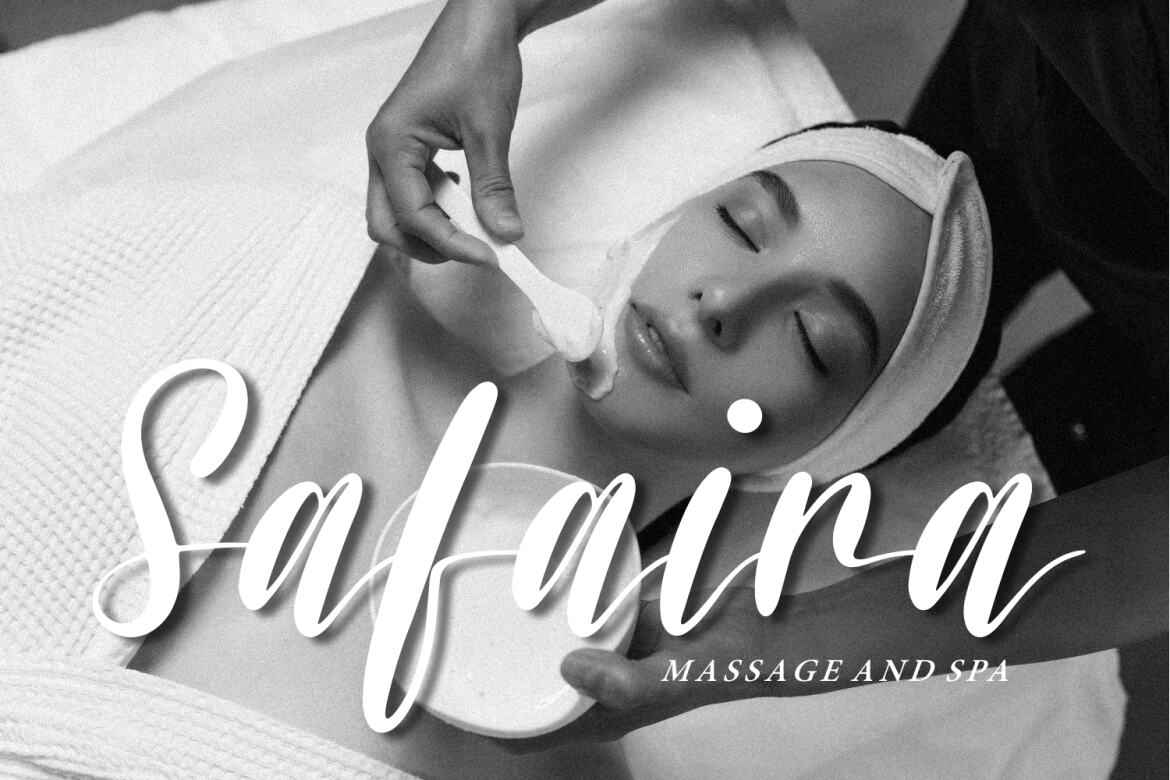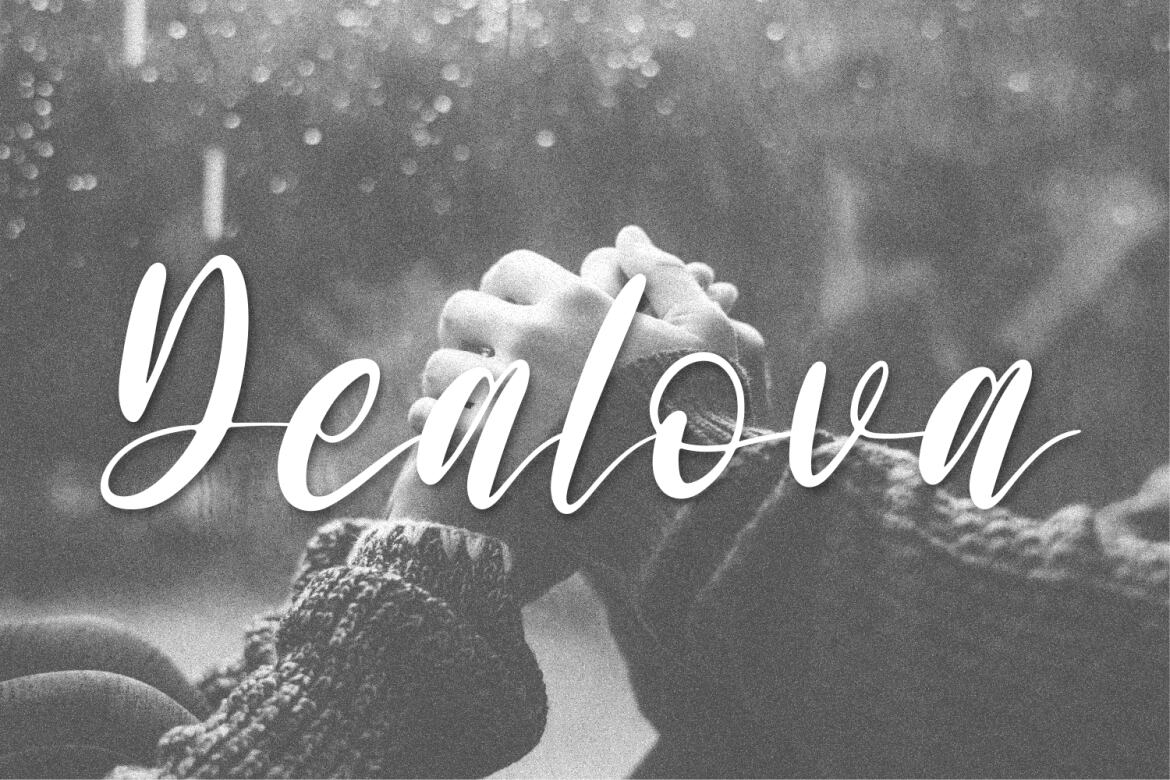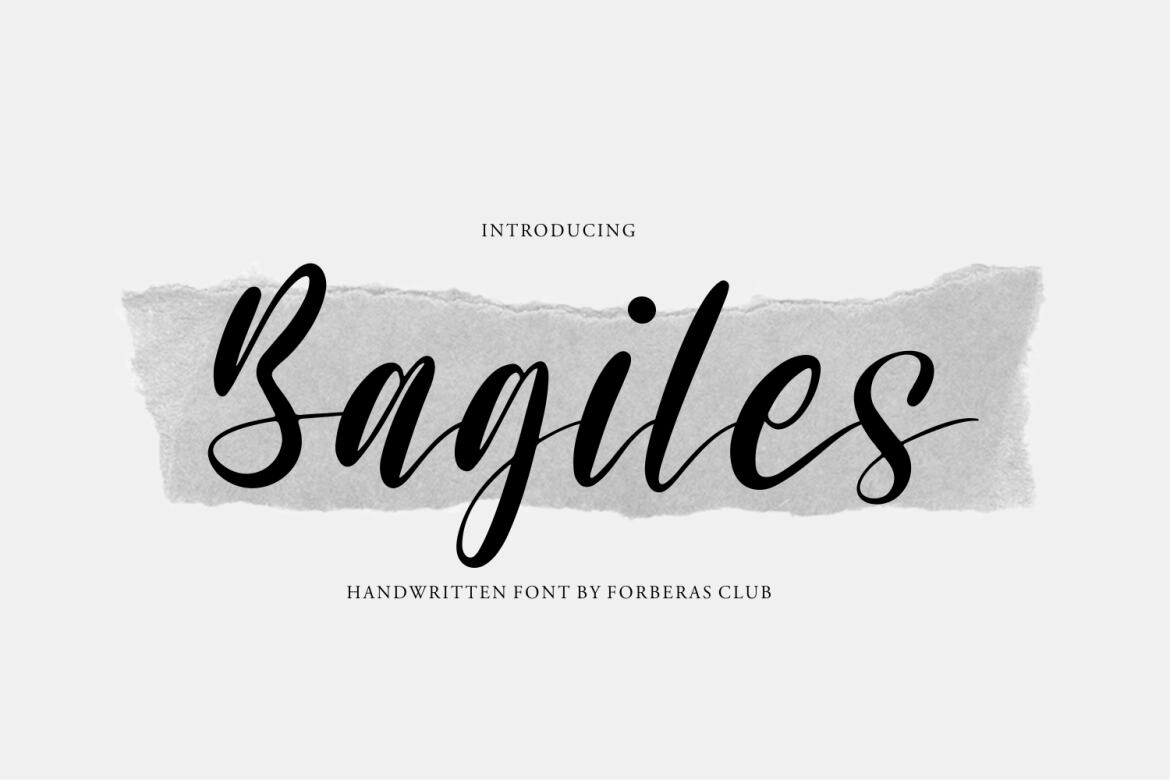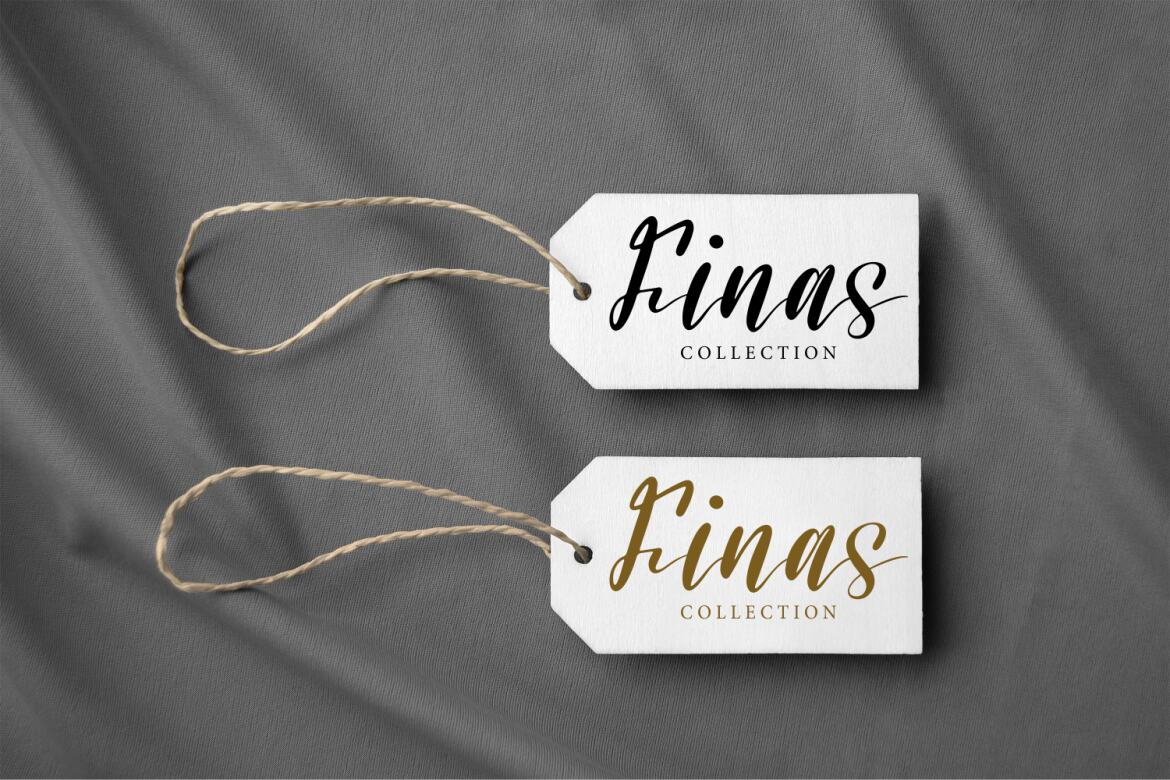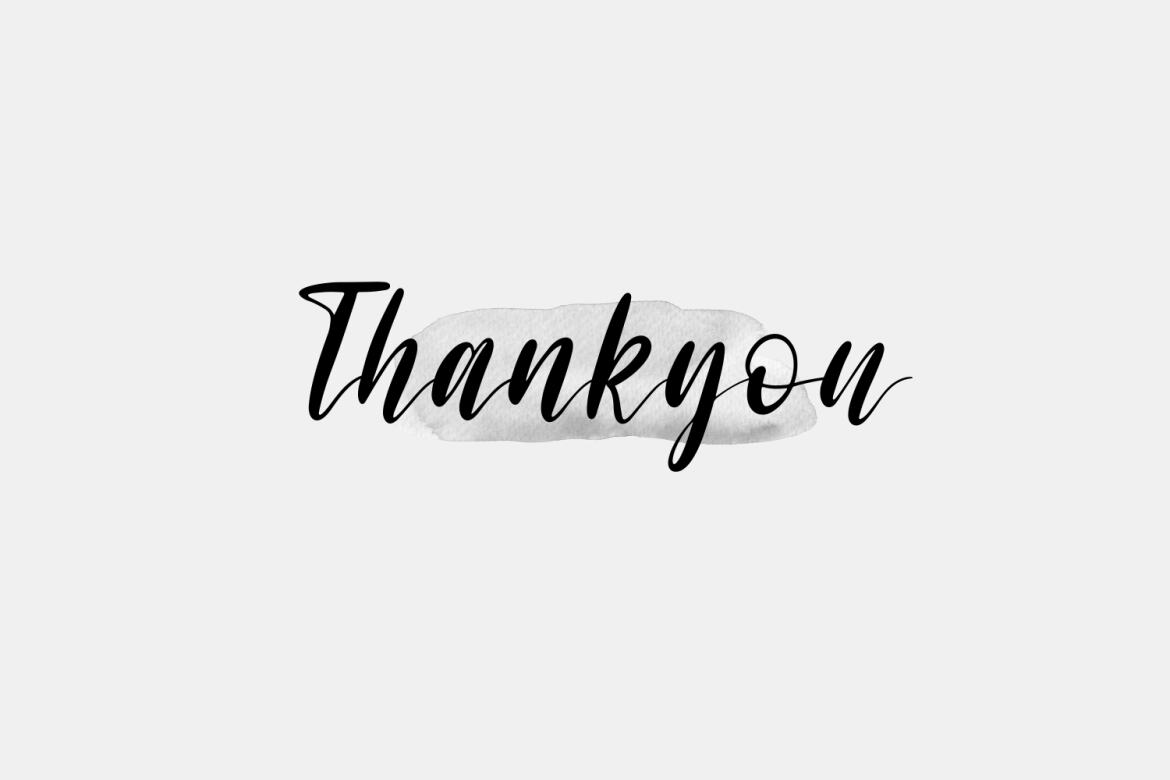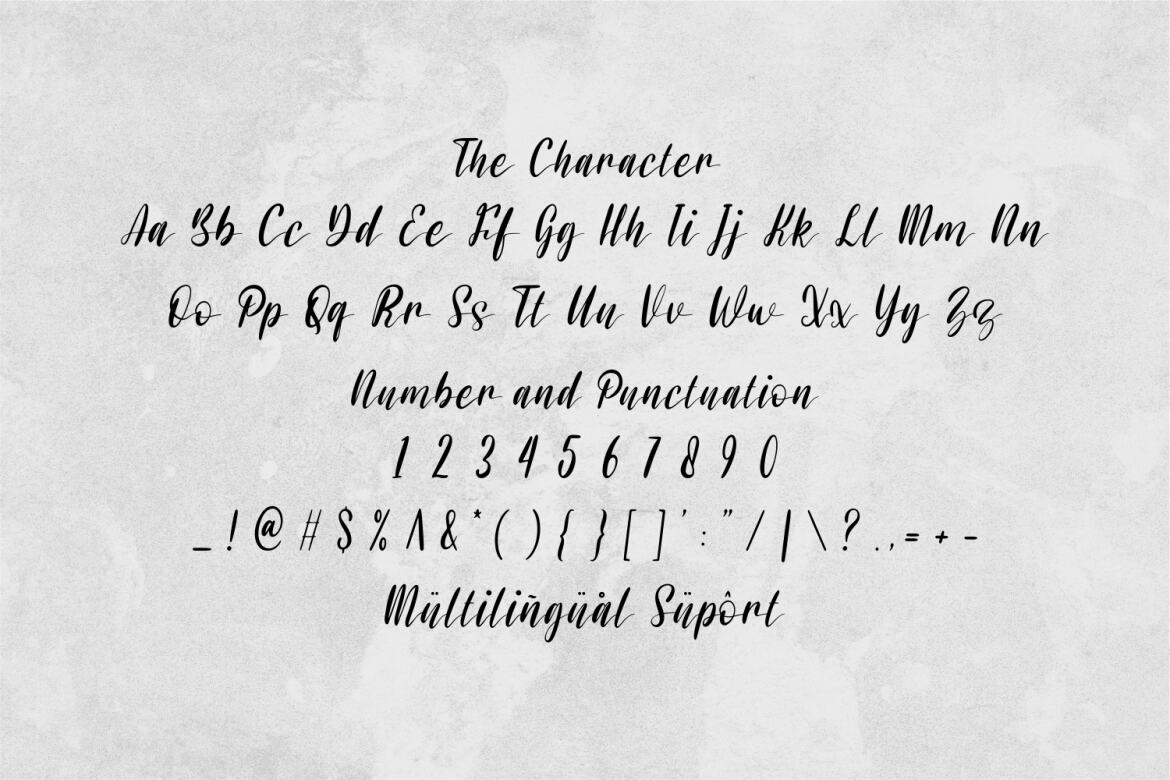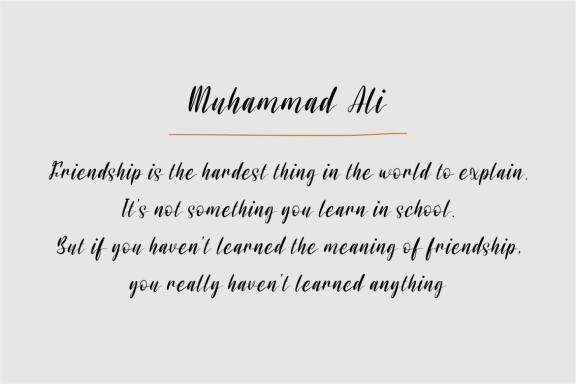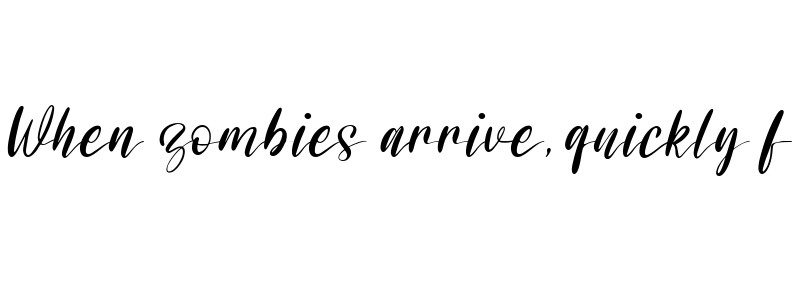
Bagiles FREE Script Font
Introducing Bagiles by Forberas Club. Bagiles is a Handwritten Script Font. Bagiles is perfect for product packaging, branding project, magazine, social media, wedding, or just used to express words above the background. This font includes TTF and OTF, also multilingual support. Enjoy the font, feel free to comment or feedback, send me PM or email.